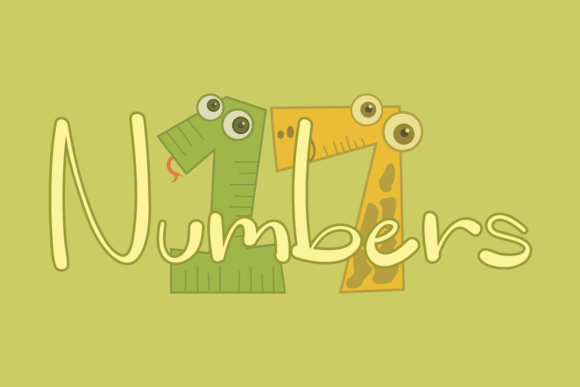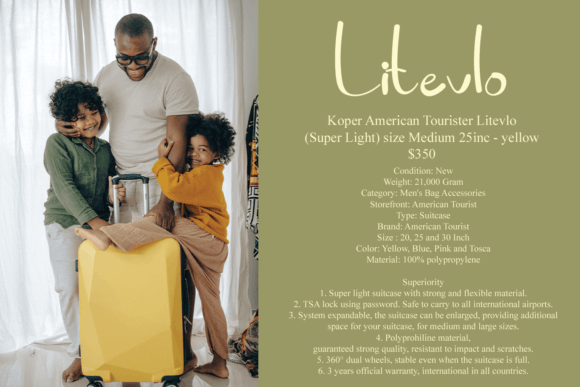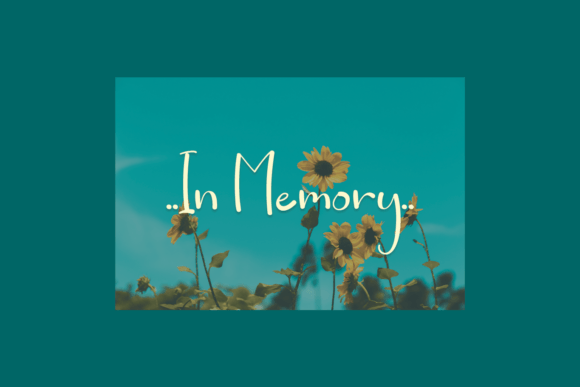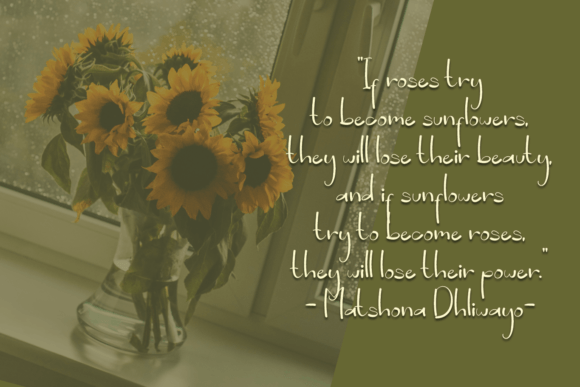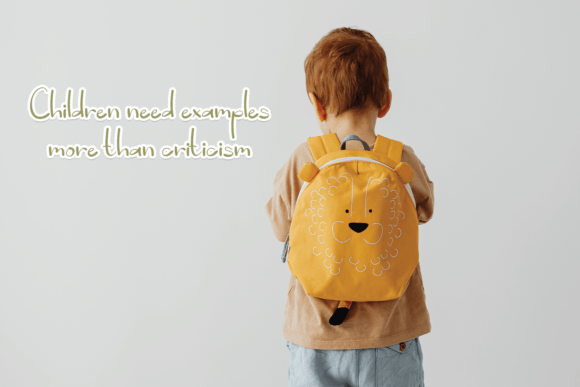
**Numbers: A Delicate Script Font with Charm**
In the realm of typography, where each font carries a unique personality, “Numbers” stands out as a lovely and delicate script font, radiating friendliness and warmth. This font is more than just a collection of characters; it’s a testament to the artistry of design. Crafted with precision and care, “Numbers” brings a beautiful and refreshing aesthetic to your creative projects, making it a perfect choice for those who seek a delightful and inviting look for their designs.
**Elegance in Every Curve:**
“Numbers” is a masterpiece of elegance, characterized by its delicate and flowing script. The font’s characters are meticulously crafted, each curve and stroke contributing to its overall charm. The letters dance gracefully, creating a harmonious flow that captures the eye and enchants the viewer. Its delicate nature adds a touch of sophistication to any design, making it ideal for projects that demand a refined and elegant aesthetic.
**A Refreshing Aura:**
What sets “Numbers” apart is its ability to breathe life into your designs with its refreshing aura. Whether you’re designing wedding invitations, greeting cards, social media posts, or product packaging, this font infuses your creations with a sense of warmth and friendliness. Its delicate strokes and soft lines create a visual experience that is both captivating and endearing, leaving a lasting impression on anyone who beholds it.
**Versatility and Charm:**
“Numbers” seamlessly adapts to a myriad of design contexts, showcasing its versatility. From formal invitations to casual branding, this font effortlessly embodies the essence of charm. Its friendly demeanor ensures that your message resonates with the audience, conveying not just words but emotions. Whether used for personal projects or professional branding, “Numbers” adds a touch of grace, transforming ordinary designs into extraordinary works of art.
**Crafting Memorable Designs:**
Every project tells a story, and “Numbers” helps you craft memorable narratives. Its delicate script allows you to create designs that are not just visually appealing but also emotionally evocative. The font becomes a storyteller, translating your ideas into captivating visuals that leave a lasting impact. Each character exudes a sense of warmth, inviting viewers to engage and connect with your message on a deeper level.
**Conclusion:**
“Numbers” is more than just a font; it’s a design companion that elevates your creations to new heights of elegance and charm. Its delicate script and refreshing aura make it a valuable asset for designers seeking to infuse their projects with friendliness and warmth. Let “Numbers” be the brushstroke of elegance in your designs, and witness how it transforms your ideas into enchanting visual stories, leaving an indelible mark on the hearts of your audience.